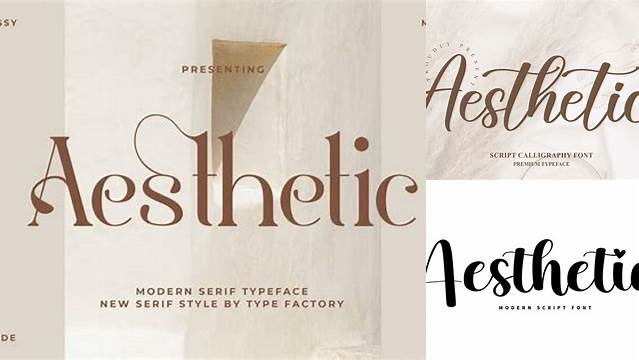
Aesthetic Fonts: A Guide To Beautiful Typography
Choosing the right font can make all the difference in creating an aesthetic design. Fonts play a crucial role in conveying the mood and message of your project. Whether you're designing a website, crafting social media graphics, or creating print materials, selecting the perfect font is essential for achieving a visually appealing result. In this guide, we'll explore a variety of aesthetic fonts that can elevate your designs and help you make a lasting impression.
Understanding Aesthetic Fonts
Before we dive into specific font recommendations, let's define what makes a font "aesthetic." Aesthetic fonts are those that possess a certain visual appeal and can evoke a particular emotion or style. They often have unique characteristics, such as elegant curves, sharp edges, or a vintage feel. The beauty of aesthetic fonts lies in their ability to add personality and character to your designs. When you're looking for aesthetic fonts, you're not just seeking readability; you're aiming for a font that enhances the overall visual composition of your work. This involves considering the font's weight, style (e.g., serif, sans-serif, script), and how it interacts with other design elements. For example, a minimalist design might benefit from a clean, sans-serif font, while a more traditional project could call for an elegant serif typeface. Ultimately, the best aesthetic font is one that complements your content and reinforces your intended message. So, think about the mood you want to create and the audience you're trying to reach when you make your selection. Remember, the right font can transform a good design into a great one, making it an investment worth careful consideration.
Serif Fonts: Timeless Elegance
Serif fonts are characterized by the small decorative strokes (serifs) at the end of letterforms. These fonts often exude a sense of tradition, elegance, and authority, making them a popular choice for formal designs, such as books, magazines, and corporate branding. But don't let their classic reputation fool you; serif fonts can also be incredibly versatile and bring a touch of sophistication to modern projects. Think of fonts like Times New Roman or Garamond – they've been staples in the design world for decades, and for good reason. Their timeless appeal ensures that your designs will remain stylish and professional. When selecting a serif font, consider the specific mood you want to create. A font like Georgia, with its sturdy serifs and clear letterforms, is excellent for readability in body text. On the other hand, a font like Playfair Display, with its dramatic thick-to-thin strokes and elegant serifs, is perfect for headlines and titles, adding a touch of luxury to your designs. Remember, the key to using serif fonts effectively is to balance their classic charm with your overall design aesthetic. Don't be afraid to experiment with different weights and styles to find the perfect fit for your project. Whether you're aiming for a timeless look or a modern twist, serif fonts offer a wide range of possibilities to enhance your designs.
Popular Serif Fonts
- Times New Roman: A classic serif font known for its readability and formal appearance.
- Garamond: An elegant and refined serif font, perfect for adding a touch of sophistication.
- Georgia: A sturdy and legible serif font, ideal for body text.
- Playfair Display: A stylish serif font with dramatic contrasts, great for headlines.
- Merriweather: A readable and contemporary serif font, suitable for both print and web.
Sans-Serif Fonts: Modern and Clean
In contrast to serif fonts, sans-serif fonts lack the decorative strokes at the end of their letterforms. This gives them a cleaner, more modern appearance, making them a favorite for contemporary designs, websites, and digital interfaces. If you're going for a minimalist or streamlined look, sans-serif fonts are your best friend. They're often associated with clarity, efficiency, and a forward-thinking vibe, making them perfect for tech startups, modern brands, and anything that needs a touch of sleekness. Think of fonts like Helvetica or Arial – they're the workhorses of the design world, known for their versatility and readability. However, the world of sans-serif fonts is vast, offering a wide range of styles and personalities. For example, a font like Montserrat, with its geometric shapes and balanced proportions, is excellent for creating a sense of sophistication and modernity. A font like Open Sans, on the other hand, is incredibly versatile and works well in various contexts, from body text to headlines. When choosing a sans-serif font, consider the overall tone of your design. Do you want it to feel bold and impactful, or subtle and understated? Experiment with different weights and styles to find the perfect balance. Whether you're designing a website, creating a logo, or crafting a presentation, sans-serif fonts can help you achieve a clean, contemporary look that resonates with your audience.
Popular Sans-Serif Fonts
- Helvetica: A widely used sans-serif font known for its simplicity and versatility.
- Arial: A clean and legible sans-serif font, often used as a substitute for Helvetica.
- Open Sans: A versatile and readable sans-serif font, suitable for various applications.
- Montserrat: A geometric sans-serif font with a modern and stylish feel.
- Lato: A sleek and friendly sans-serif font, ideal for a contemporary look.
Script Fonts: Elegant and Personal
Script fonts mimic the flowing strokes of handwriting, adding an elegant and personal touch to designs. These fonts are often used to convey a sense of creativity, romance, or sophistication, making them ideal for invitations, logos, and branding materials. However, script fonts can be a bit tricky to use effectively. While they can add a beautiful flourish to your designs, they're not always the most readable, especially in large blocks of text. The key to using script fonts is to use them sparingly and in the right context. Think of them as the decorative icing on a cake – a little goes a long way. For example, a script font can be stunning for a wedding invitation, adding a touch of romance and elegance. It can also be perfect for a logo, giving your brand a unique and personalized feel. But you probably wouldn't want to use a script font for the body text of a website or a lengthy document. When choosing a script font, consider the overall style of your design. Do you want something formal and elegant, or more playful and casual? A font like Brush Script, with its bold and dynamic strokes, can add a fun, hand-lettered feel to your designs. A font like Great Vibes, on the other hand, is more refined and elegant, perfect for formal occasions. Ultimately, the best script font is one that complements your content and enhances the overall aesthetic of your project. So, experiment with different styles and use them strategically to add a touch of personality and flair to your designs.
Popular Script Fonts
- Brush Script: A casual and dynamic script font with a hand-lettered feel.
- Great Vibes: An elegant script font with flowing strokes, perfect for formal occasions.
- Pacifico: A relaxed and friendly script font, ideal for a playful vibe.
- Lobster: A bold and eye-catching script font with a vintage touch.
- Alex Brush: A clean and legible script font, suitable for various design purposes.
Display Fonts: Unique and Eye-Catching
Display fonts are designed to grab attention and make a statement. These fonts often have unique and distinctive characteristics, making them perfect for headlines, logos, and other design elements where you want to create a strong visual impact. Think of them as the stars of your design – they're meant to shine and stand out from the crowd. Display fonts come in a wide variety of styles, from bold and geometric to quirky and playful, so there's something for every project. However, like script fonts, display fonts should be used sparingly. They're not typically suitable for body text, as their unique characteristics can make them difficult to read in large blocks. Instead, use them strategically to highlight key elements and add personality to your designs. For example, a bold display font can be perfect for a website headline, instantly grabbing the visitor's attention. A quirky display font can add a playful touch to a logo or branding materials. When choosing a display font, consider the overall tone of your design and the message you want to convey. Do you want to be bold and impactful, or fun and whimsical? A font like Bebas Neue, with its tall and narrow letters, is excellent for creating a modern and impactful look. A font like Playfair Display Black, on the other hand, adds a touch of elegance and sophistication. Ultimately, the best display font is one that complements your content and helps you achieve your desired visual impact. So, don't be afraid to experiment and have fun with it! With the right display font, you can transform your designs from ordinary to extraordinary.
Popular Display Fonts
- Bebas Neue: A popular sans-serif display font with tall and narrow letters.
- Oswald: A versatile sans-serif display font, suitable for headlines and titles.
- Raleway: An elegant sans-serif display font with a modern feel.
- Playfair Display Black: A bold and sophisticated serif display font.
- ChunkFive: A bold slab-serif display font, perfect for making a statement.
Conclusion: The Power of Aesthetic Fonts
In conclusion, aesthetic fonts are a powerful tool for enhancing your designs and conveying your message effectively. Whether you're aiming for timeless elegance, modern simplicity, or personal flair, the right font can make all the difference. From classic serif fonts to clean sans-serifs, elegant script fonts to eye-catching display fonts, there's a perfect typeface for every project. By understanding the characteristics of different font styles and following the tips outlined in this guide, you can confidently choose fonts that elevate your designs and help you achieve your creative goals. Remember to consider your brand and message, prioritize readability, and experiment with font pairings to create visual harmony. And don't forget to explore the vast resources available online to discover new and exciting fonts. So, go ahead and dive into the world of typography! With a little creativity and attention to detail, you can harness the power of aesthetic fonts to create designs that are not only visually appealing but also meaningful and impactful. The right font isn't just about aesthetics; it's about communication. It's about telling your story in a way that resonates with your audience and leaves a lasting impression. So, choose wisely and let your fonts speak volumes.